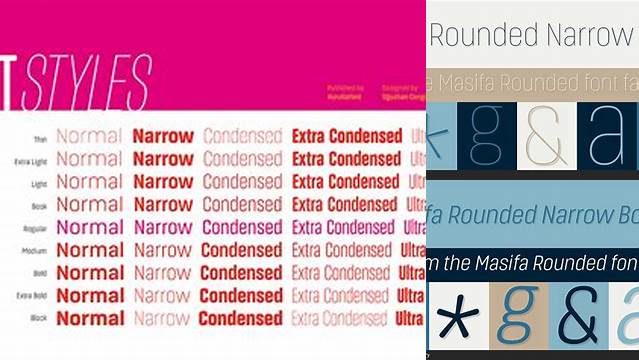
Masifa Rounded Narrow Font: Free Download & Uses
Are you on the hunt for a font that's both modern and versatile? Masifa Rounded Narrow font might just be the perfect fit for your next project! This font combines the clean lines of a narrow sans-serif with the friendly curves of rounded edges, creating a unique and appealing aesthetic. In this article, we'll dive deep into what makes Masifa Rounded Narrow so special, where you can find it for free, and how you can use it to elevate your designs. So, stick around, guys, because this is one font you won't want to miss!
What Makes Masifa Rounded Narrow Font So Special?
Let's break down why Masifa Rounded Narrow has become a favorite among designers. First off, its narrow width allows you to pack more text into a smaller space without sacrificing readability. This is a huge win for projects like website headers, brochures, and posters where space can be a real constraint. Imagine you're designing a sleek website header, and you need to fit a catchy slogan without making the text look cramped. Masifa Rounded Narrow comes to the rescue, giving you that elegant, condensed look while keeping everything crystal clear. The beauty of this font also lies in its rounded edges, which soften the overall appearance and give it a warm, approachable feel. Unlike sharp, angular fonts that can sometimes feel cold or clinical, Masifa Rounded Narrow exudes a sense of friendliness and modernity. This makes it ideal for brands that want to project a welcoming image, such as startups, creative agencies, or even businesses in the health and wellness sector.
Think about how the right font can completely transform a design. Masifa Rounded Narrow bridges the gap between professional and personable, making it incredibly versatile. Whether you're designing a logo, crafting marketing materials, or even working on a personal project, this font can adapt to your needs. Its clean, minimalist design ensures it pairs well with a variety of other fonts and graphic elements, giving you the flexibility to create a cohesive and visually appealing design. The font's legibility is another key factor. Even at smaller sizes, Masifa Rounded Narrow remains easy to read, which is crucial for body text and other applications where clarity is paramount. No one wants to squint or struggle to decipher a message, and Masifa Rounded Narrow ensures your text is always clear and accessible. Furthermore, the font's modern aesthetic makes it a great choice for digital platforms. It looks fantastic on screens, whether it's on a website, a mobile app, or a social media graphic. This is essential in today's digital age, where so much of our communication happens online. By using Masifa Rounded Narrow, you can ensure your message is delivered with style and clarity, no matter the medium. In short, Masifa Rounded Narrow is a versatile, modern, and highly readable font that can add a touch of elegance and warmth to any design. Its unique combination of narrow width and rounded edges makes it a standout choice for a wide range of projects, and its availability as a free download makes it even more appealing.
How Can You Use Masifa Rounded Narrow to Elevate Your Designs?
So, you've got your hands on the Masifa Rounded Narrow font, and now it's time to put it to work! But how exactly can you use this versatile font to make your designs shine? Let's explore some creative ways to incorporate Masifa Rounded Narrow into your projects. First off, consider using it for branding. A font can be a powerful tool for conveying your brand's personality, and Masifa Rounded Narrow's modern and approachable vibe makes it a great choice for businesses that want to project a friendly yet professional image. Think about using it for your logo, website headers, and marketing materials. The font's clean lines and rounded edges can help your brand stand out while maintaining a sense of warmth and approachability. For example, if you're designing a logo for a tech startup, Masifa Rounded Narrow can give it a contemporary edge without feeling too cold or sterile. The rounded corners add a touch of playfulness, making the brand feel more relatable and human.
Another fantastic application for Masifa Rounded Narrow is in web design. Its legibility and modern aesthetic make it a perfect fit for websites of all kinds. Use it for headings, body text, and navigation menus to create a cohesive and user-friendly experience. The font's narrow width allows you to maximize space on your website, making it ideal for responsive designs that need to look great on both desktop and mobile devices. Imagine you're designing a website for a creative agency. Masifa Rounded Narrow can be used for the main headings to grab attention and convey a sense of style. For body text, its readability ensures that visitors can easily consume your content. And in navigation menus, its clean lines help create a clear and intuitive user interface. Beyond branding and web design, Masifa Rounded Narrow can also be a great choice for print materials. Its versatility makes it suitable for brochures, posters, flyers, and even business cards. Whether you're designing a sleek corporate brochure or a vibrant event poster, this font can help you achieve a polished and professional look. Think about using it for headlines and subheadings in a brochure to create a visual hierarchy and guide the reader's eye. On a poster, its bold yet friendly appearance can help your message stand out in a crowded space. And on business cards, its clean lines and readability ensure that your contact information is clear and easy to read.
For those working on social media graphics, Masifa Rounded Narrow is a valuable asset. Its modern look and feel make it perfect for creating eye-catching posts and ads. Use it for captions, text overlays, and call-to-actions to grab attention and convey your message effectively. The font's versatility means it can be used across a wide range of social media platforms, from Instagram to Facebook to Twitter. For instance, if you're creating an Instagram post for a sale, Masifa Rounded Narrow can be used for the main text to highlight the discount and attract viewers. On Facebook, it can be used in ad headlines to create a clean and professional look. And on Twitter, its readability ensures that your tweets are easy to read, even on small screens. Finally, don't be afraid to experiment with different font pairings. Masifa Rounded Narrow pairs well with a variety of other fonts, from classic serifs to more modern sans-serifs. Try combining it with a bolder font for headlines and subheadings, or use it as the primary font for body text and pair it with a more decorative font for accents. The key is to find a combination that complements your overall design and helps you achieve the desired aesthetic. In conclusion, Masifa Rounded Narrow font is a fantastic addition to any designer's toolkit. Its versatility, modern aesthetic, and readability make it a valuable asset for a wide range of projects. So go ahead, download it, and start experimenting with all the creative possibilities it offers!
Masifa Rounded Narrow font is truly a gem in the world of typography. Its unique blend of modern aesthetics, narrow form, and rounded edges makes it a versatile choice for a plethora of design projects. From branding to web design, print materials to social media graphics, this font can elevate your work and help you communicate your message with style and clarity. And the best part? It's available for free! So, if you're looking for a font that's both contemporary and approachable, Masifa Rounded Narrow is definitely worth a try. Download it, experiment with it, and see how it can transform your designs. Whether you're a seasoned designer or just starting out, this font is sure to become a valuable tool in your creative arsenal. Happy designing, folks! Remember to always check the licensing terms before using any free font in your projects, and don't forget to back up your font library to keep your precious resources safe and sound. Now go out there and create some amazing things with Masifa Rounded Narrow!